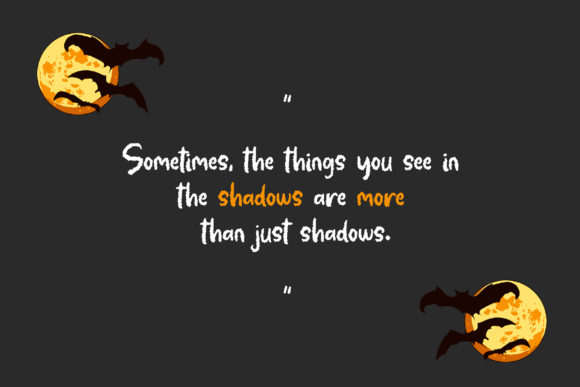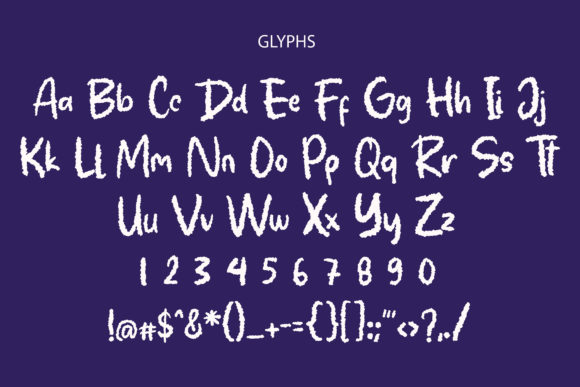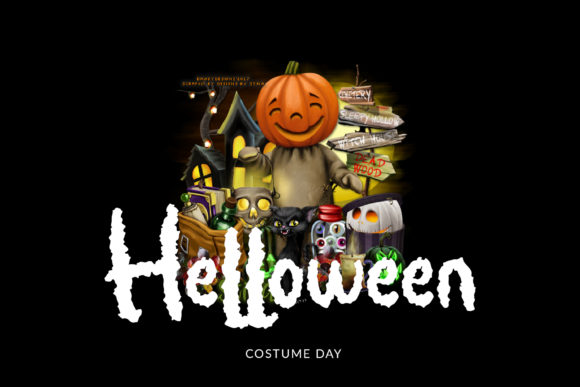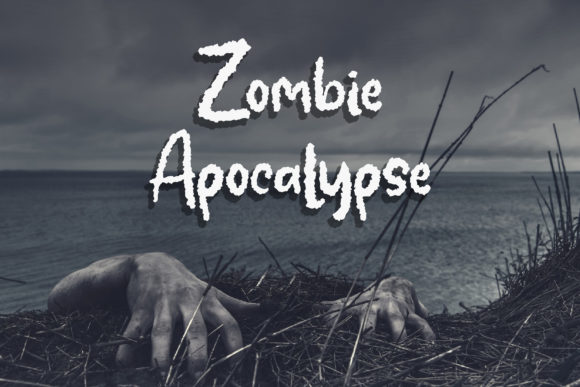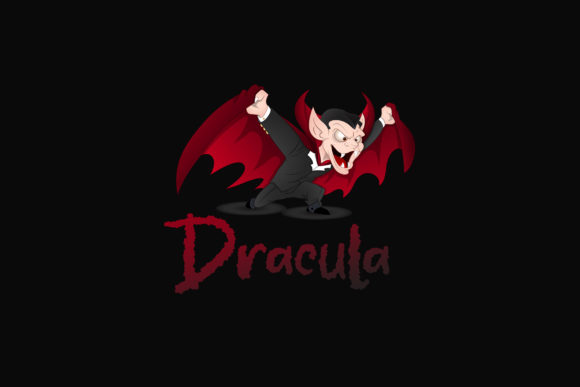
Mystery Night Font
About Mystery Night Font
Mystery Night is a spooky font. This amazing handwritten font will brighten up your Halloween’s crafting projects!